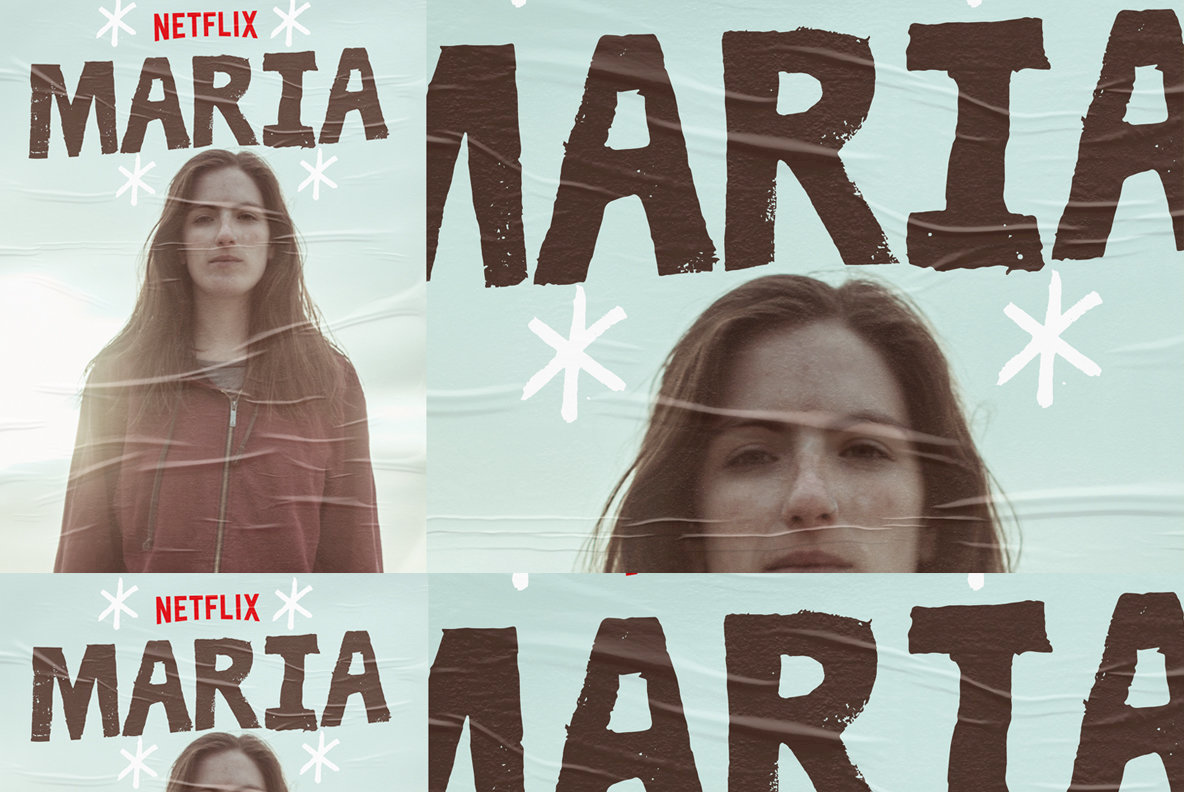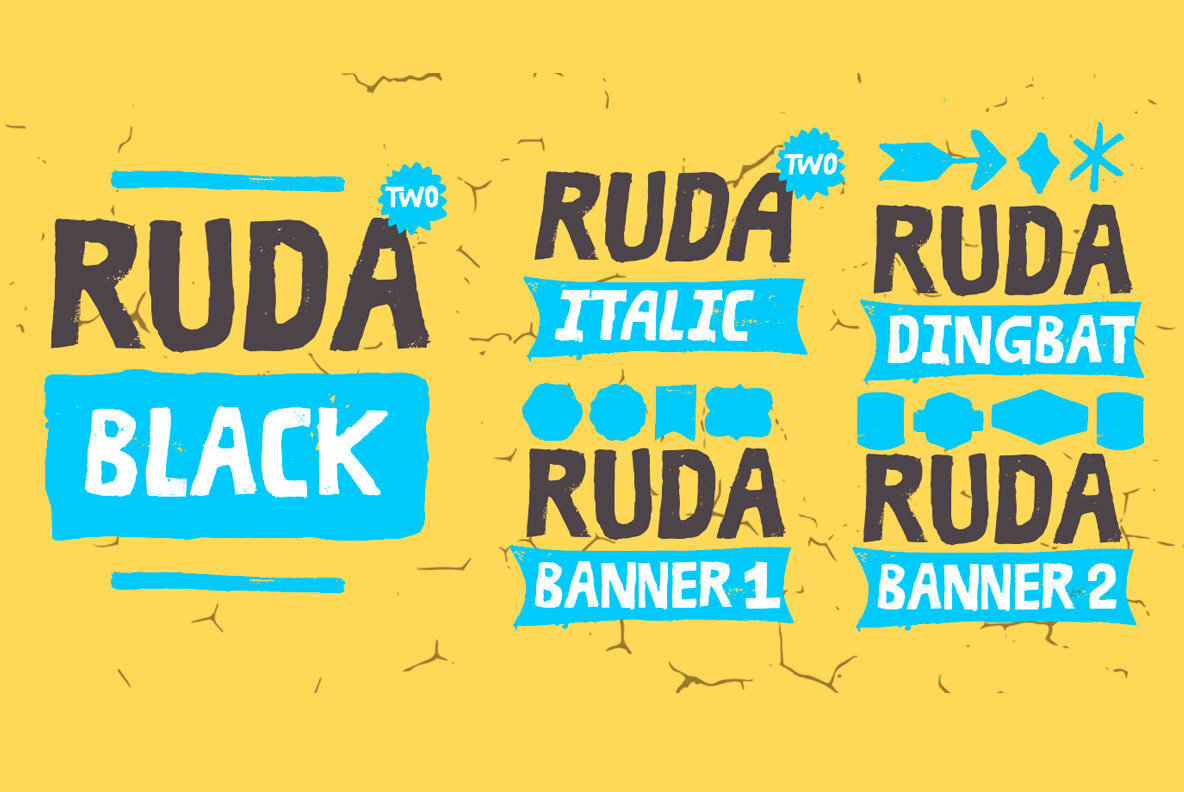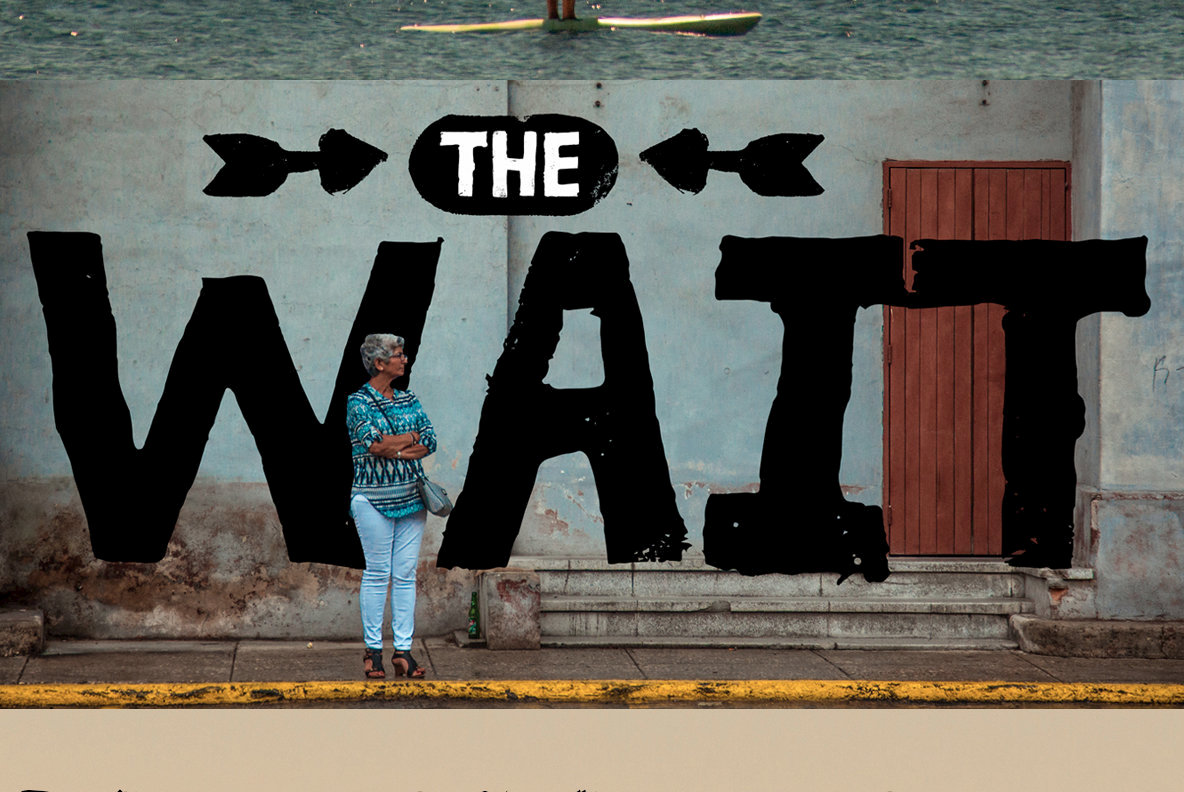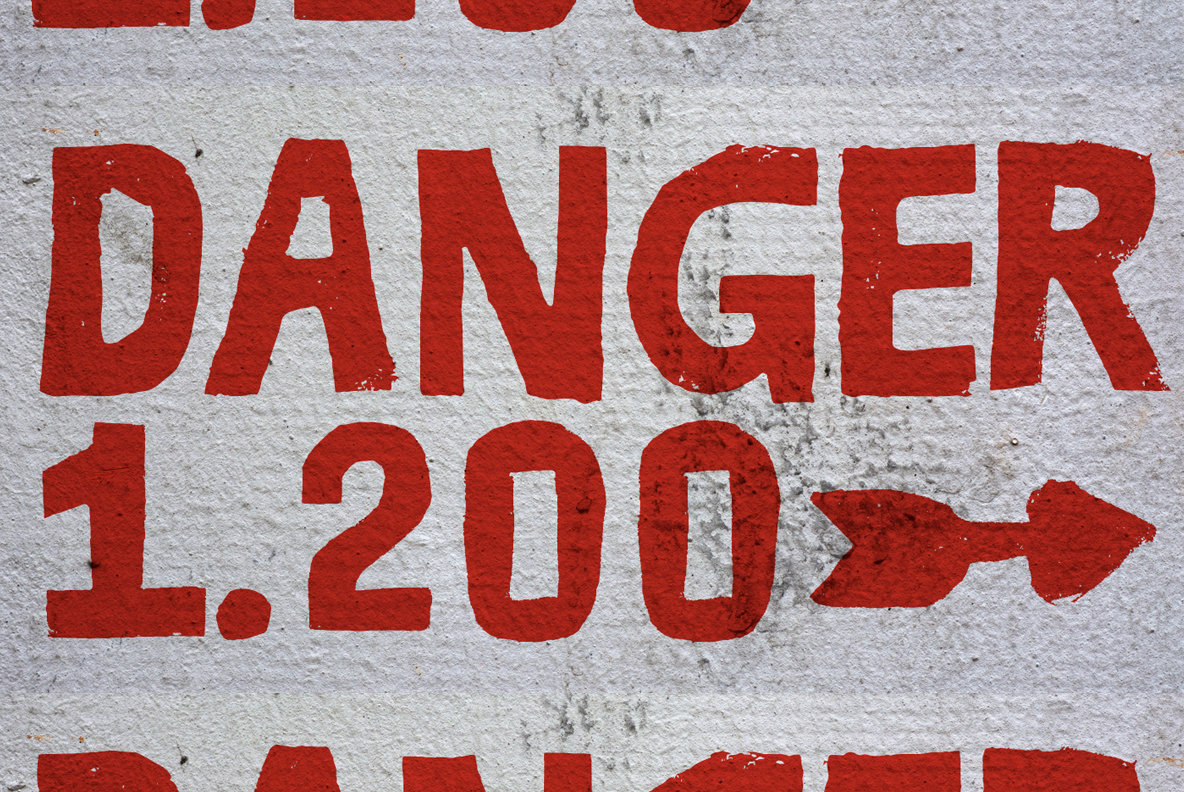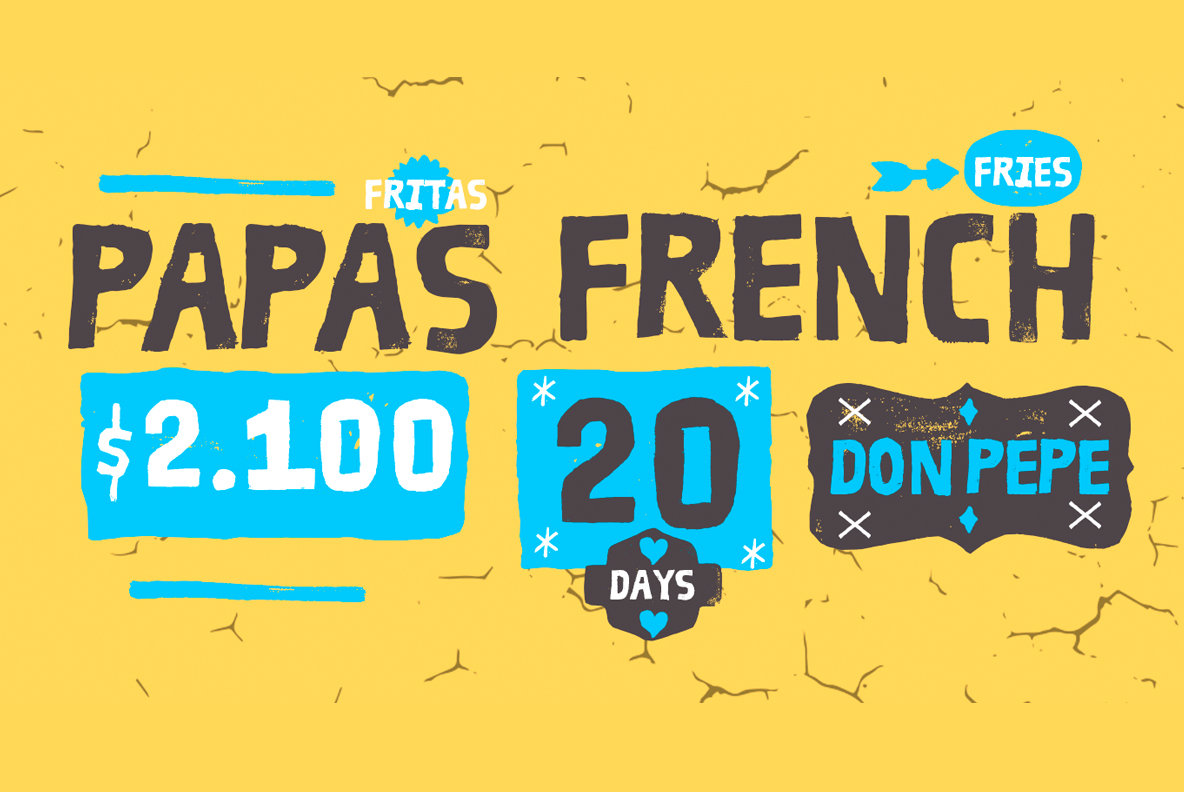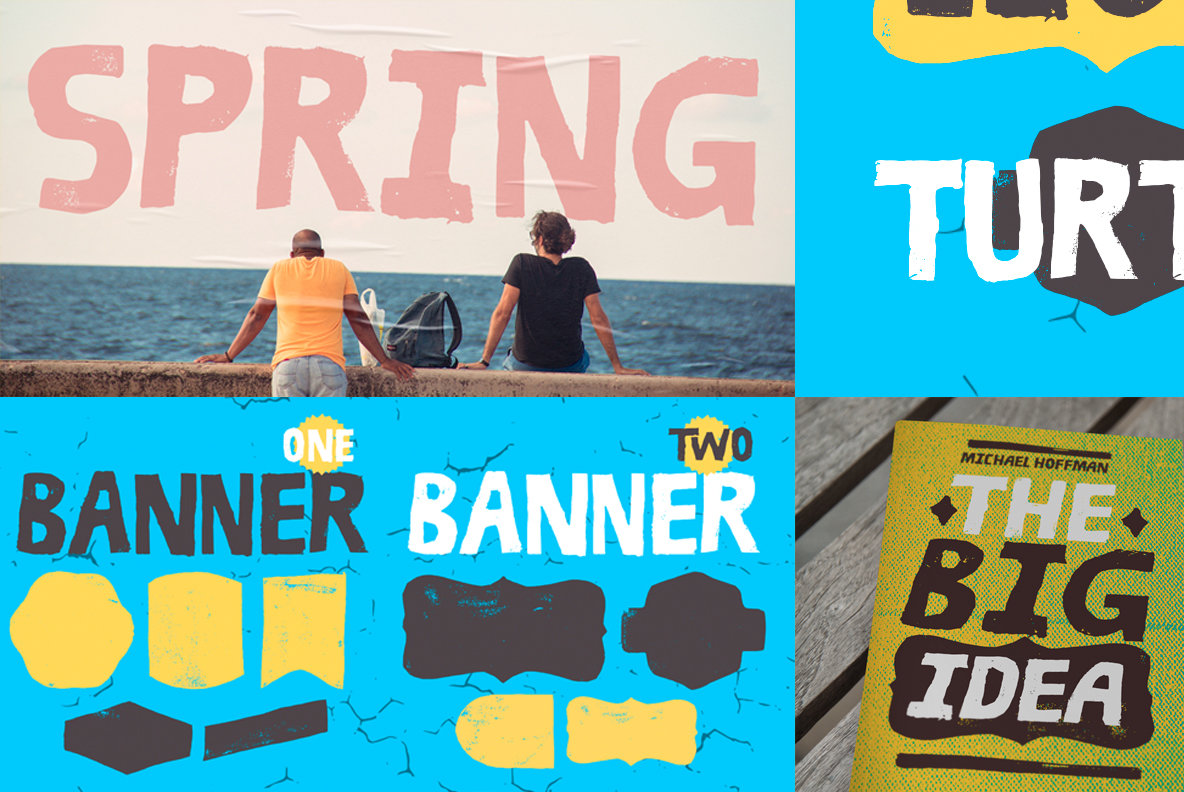
Ruda Two: Handcrafted Typography for Experimental Designs
Ruda Two, a creation from RodrigoTypo, stands out with its hand-drawn aesthetics. Each letter, ornament, and banner is uniquely designed using ink and diverse materials. Inspired by independent film, this typeface is ideal for creating children's graphics or adding suspenseful flair to your projects.
• Handcrafted Design – Every character crafted with meticulous attention to detail.
• Versatile Application – Suitable for experimental designs, children's graphics, or creating a dramatic tone.
• Artistic Inspiration – Reflects the creativity of independent cinema.